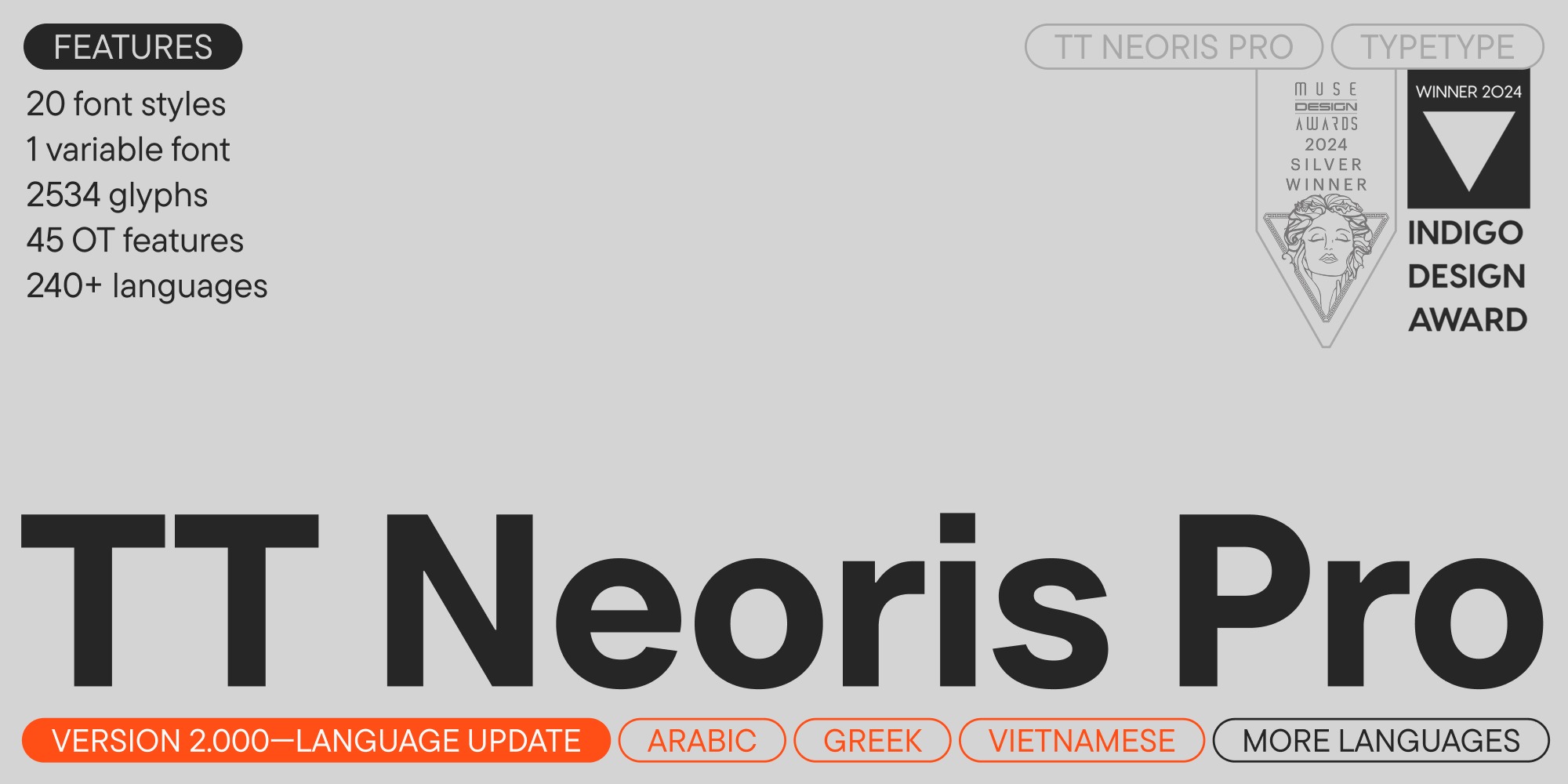
TT Neoris Pro Font Family
TT Neoris Pro Font Family is a versatile font designed to adapt beautifully across different design styles, offering dependable readability and balance. TT Neoris Pro version 2.000—now with support for Greek, Arabic, and Vietnamese! TT Neoris Pro is a concise neo-grotesque for universal use. We developed this font family over two and a half years. First, we carefully studied the market and conducted extensive research on the topic of the “perfect grotesque.” Then, drawing on those results, we set a goal: to create a neo-grotesque with a neutral character, basic and easy to use, yet original, contemporary, and fresh. This is exactly how TT Neoris Pro turned out: simple and expressive, universal and functional. It is also versatile and multi-faceted. Thanks to a large number of options, this single font can replace several at once, changing its mood and character. We paid special attention to details to bring the font closer to the ideal. We made the proportions of the italic styles slightly narrower than the uprights, and added a stylistic set with true italic forms for Cyrillic—its design honors the tradition of Cyrillic calligraphy. We ensured that the boldest font style has the same serious character as the regular one. We also added support for all Cyrillic-based languages with over a million speakers. The main update in version 2.000 is the addition of Greek and Vietnamese, as well as a font based on the Arabic alphabet. All forms look emphatically neutral and contemporary. For the Arabic version, we chose a hybrid of the Kufi and Naskh styles—it is a modern take on the Arabic script with rather simple and minimalistic graphics, but with subtle humanist touches noticeable in the terminals and connections. The standout feature is the diamond-shaped dots in all diacritics, which can be swapped for round ones using a stylistic set. We also added the dirham and dong currency symbols in all cases, and updated the kerning and hinting. TT Neoris Pro 2.000 includes: 21 styles: 10 uprights, 10 italics, and 1 variable font that changes along the weight and slant axes 2,534 glyphs per style 45 OpenType features 20 stylistic sets Support for over 240 languages
Designer: Ivan Gladkikh, Antonina Zhulkova, TypeType Team